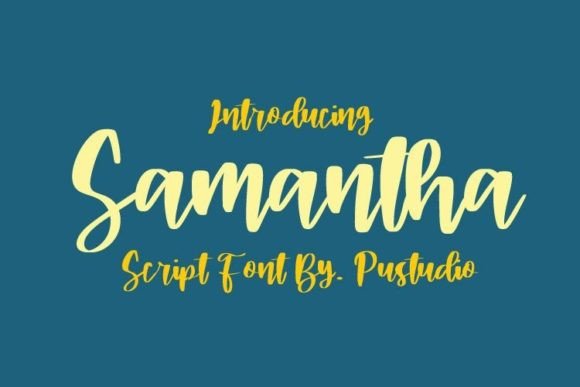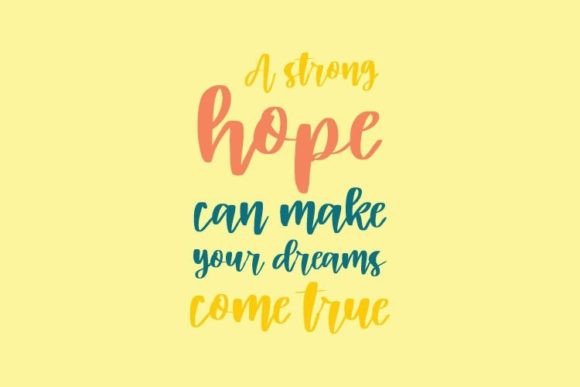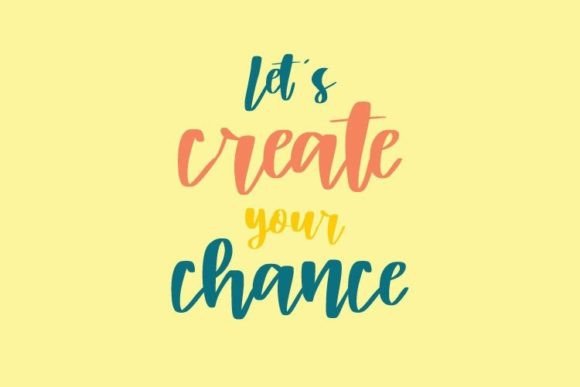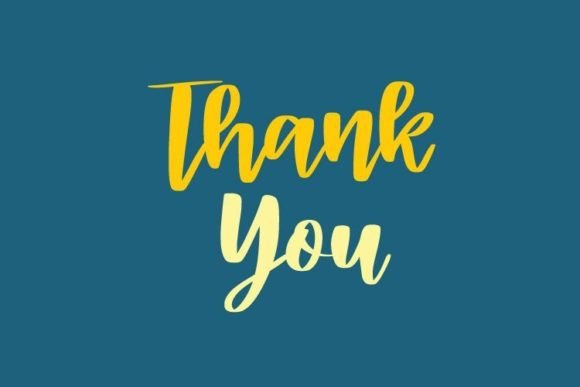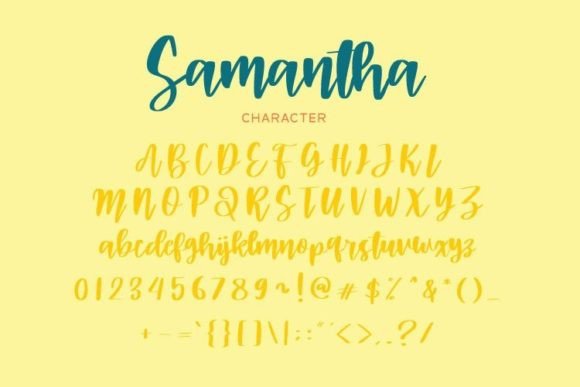
Samantha Font
About Samantha Font
“Samantha is a stunning script font that effortlessly combines beauty with a touch of playfulness. Its graceful and elegant characters are complemented by fun and quirky elements, making it a versatile choice that enhances the appeal of any design. When you incorporate Samantha into your creative projects, you’ll immediately notice how it elevates your ideas and makes them truly stand out.
One of Samantha’s remarkable qualities is its timeless beauty. The font exudes a sense of sophistication, making it perfect for various design applications. Whether you’re working on wedding invitations, branding materials, packaging, advertising, or any other creative project, Samantha adds a touch of elegance that leaves a lasting impression.
What sets Samantha apart is its ability to blend seamlessly with different design styles. The font’s versatile characters make it suitable for both formal and casual contexts, allowing you to experiment with various themes and aesthetics. Whether you’re designing a high-end luxury brand or a quirky and whimsical product, Samantha adapts effortlessly, enhancing the overall visual impact of your designs.
Additionally, Samantha’s fun and quirky characters add a playful charm to your projects. The font injects a sense of personality and character into your designs, making them more engaging and relatable to your audience. Its versatility shines through, making it equally suitable for children’s books, product packaging, social media graphics, or any creative endeavor where a touch of whimsy is desired.
Samantha’s charm lies not only in its visual appeal but also in its ease of use. Its legible and well-crafted characters ensure readability, making it a practical choice for a wide range of applications. Whether you’re designing a website, creating print materials, or crafting digital content, Samantha guarantees that your message is communicated clearly and effectively.
Incorporating Samantha into your creative endeavors is like adding a secret ingredient that enhances the flavor of your designs. Its combination of beauty, sophistication, and playfulness creates a unique synergy that captivates viewers’ attention. Watch as your most creative ideas come to life with Samantha, making a bold statement and leaving a lasting impression on everyone who experiences your designs.
In summary, Samantha is more than just a font; it’s a design companion that transforms your creative vision into visually appealing and unforgettable experiences. Its beautiful script, combined with fun and quirky characters, makes it an essential addition to any designer’s toolkit. Embrace the charm of Samantha and let your creativity soar, crafting designs that are as unique and captivating as your imagination allows.”